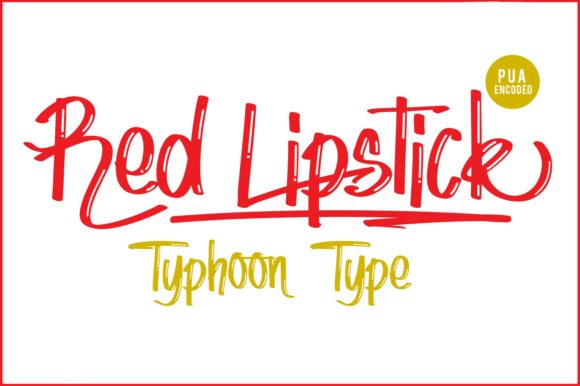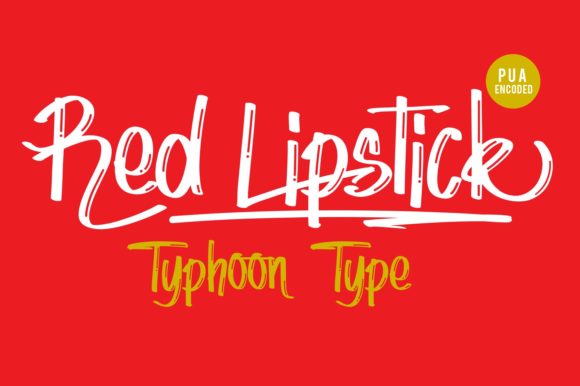
Red Lipstick Font: A Bold Handwritten Font for Cricut & DIY Projects
About the Red Lipstick Font
Let us introduce you to Red Lipstick Font, where timeless design meets modern craftsmanship. Red Lipstick is a fun and bold handwritten font with a rough edge. Get inspired by its powerful vibe.
Red Lipstick’s bold, slightly rebellious character makes it ideal for headlines, short impactful statements, and branding projects needing a touch of edgy personality. It works exceptionally well on posters, packaging for cosmetics or fashion, and social media graphics where a strong visual presence is key. Avoid using it for body text or lengthy paragraphs; its informality and varying stroke weights hinder readability in large blocks.
The overall aesthetic is confident and slightly playful, suggesting a brand that is bold, unapologetic and contemporary, yet approachable.